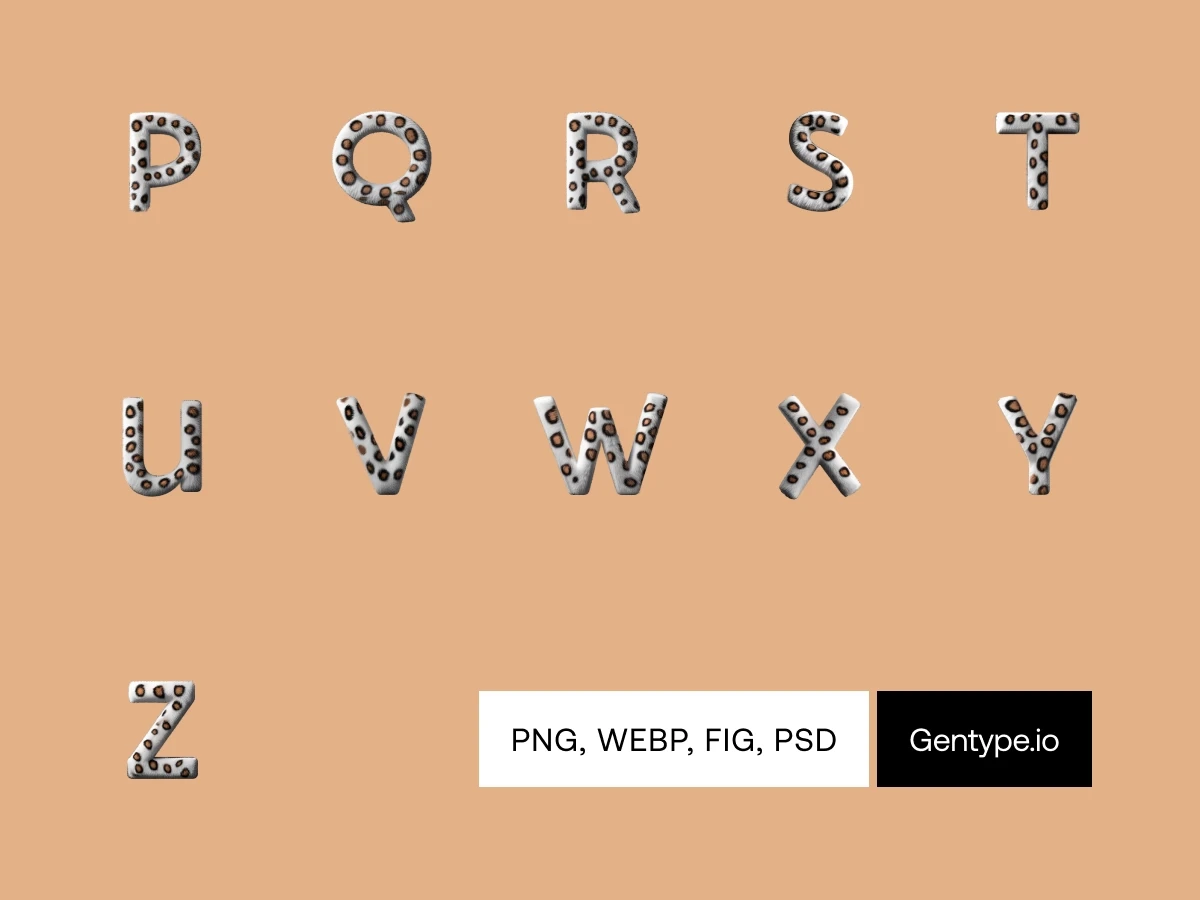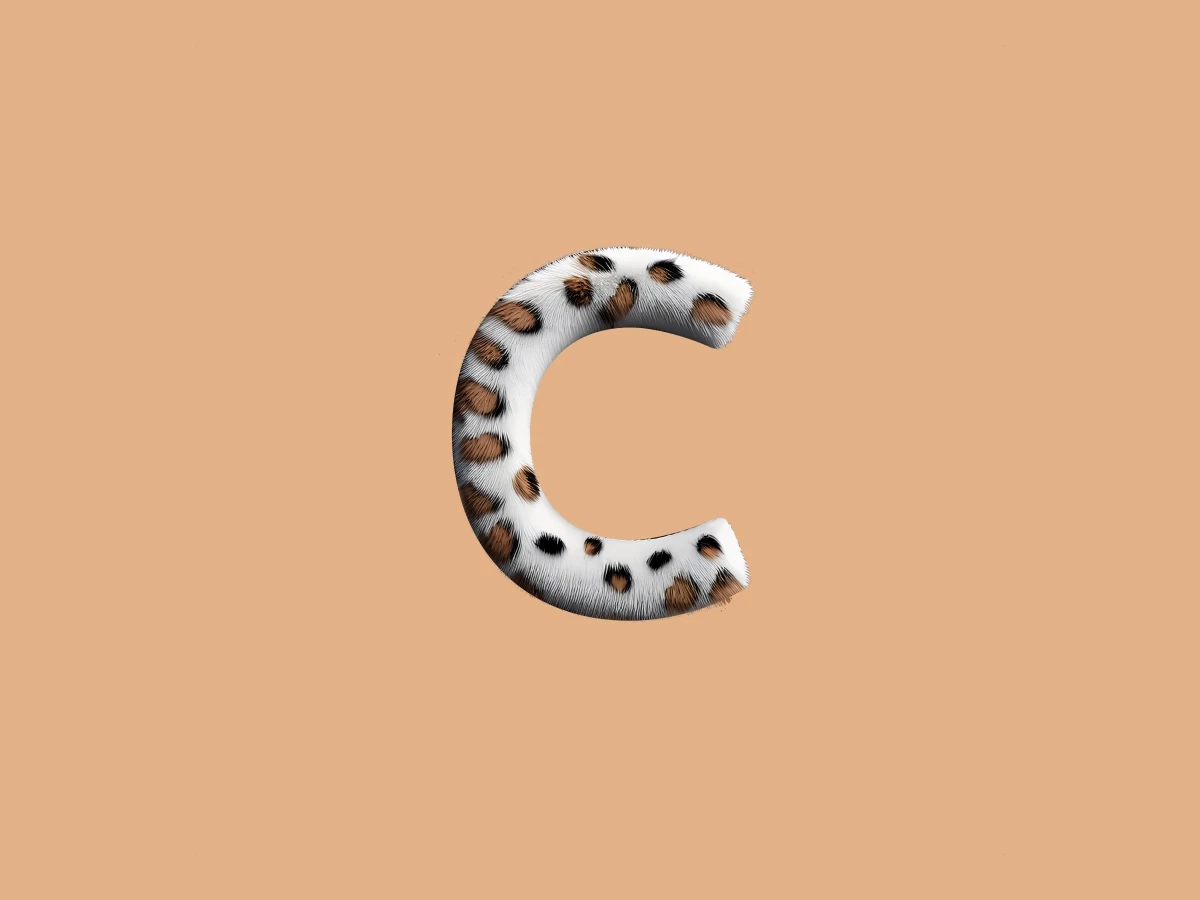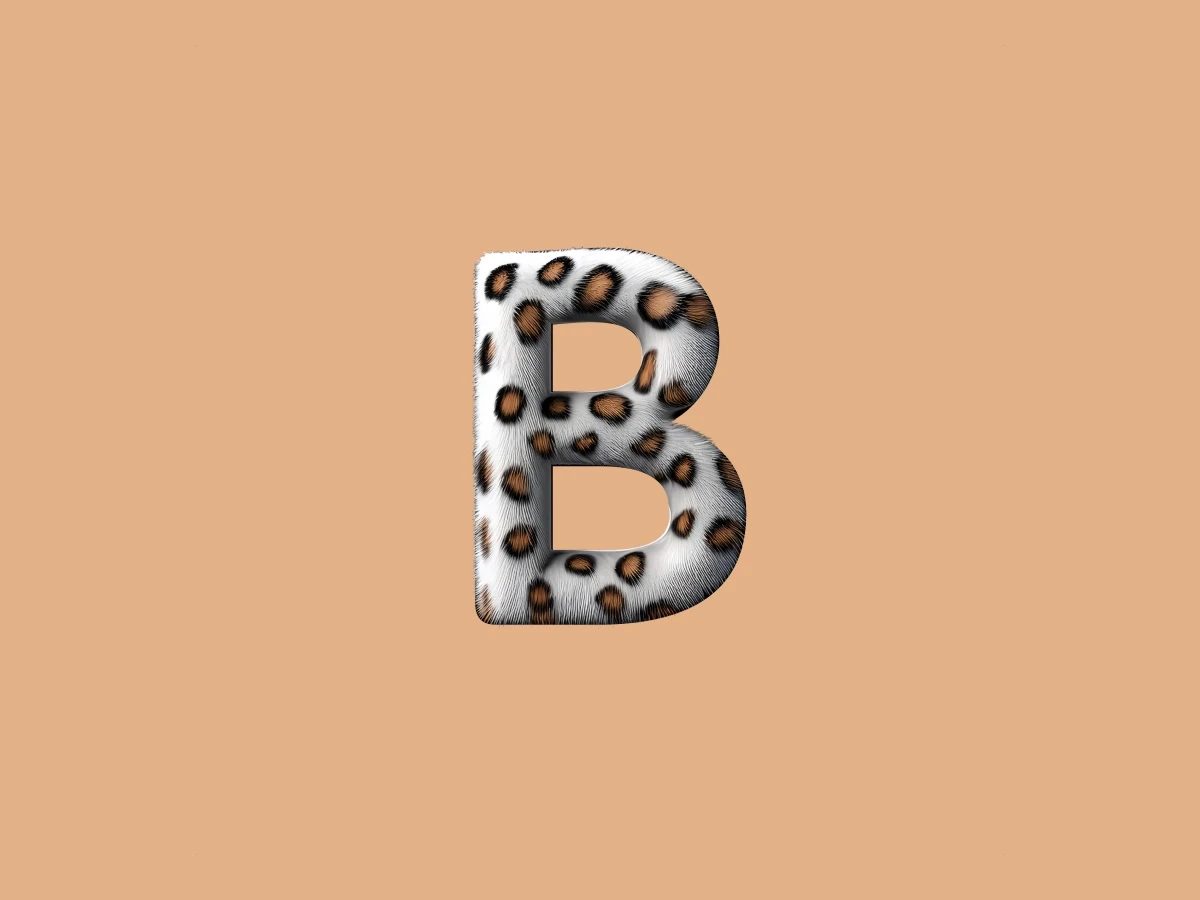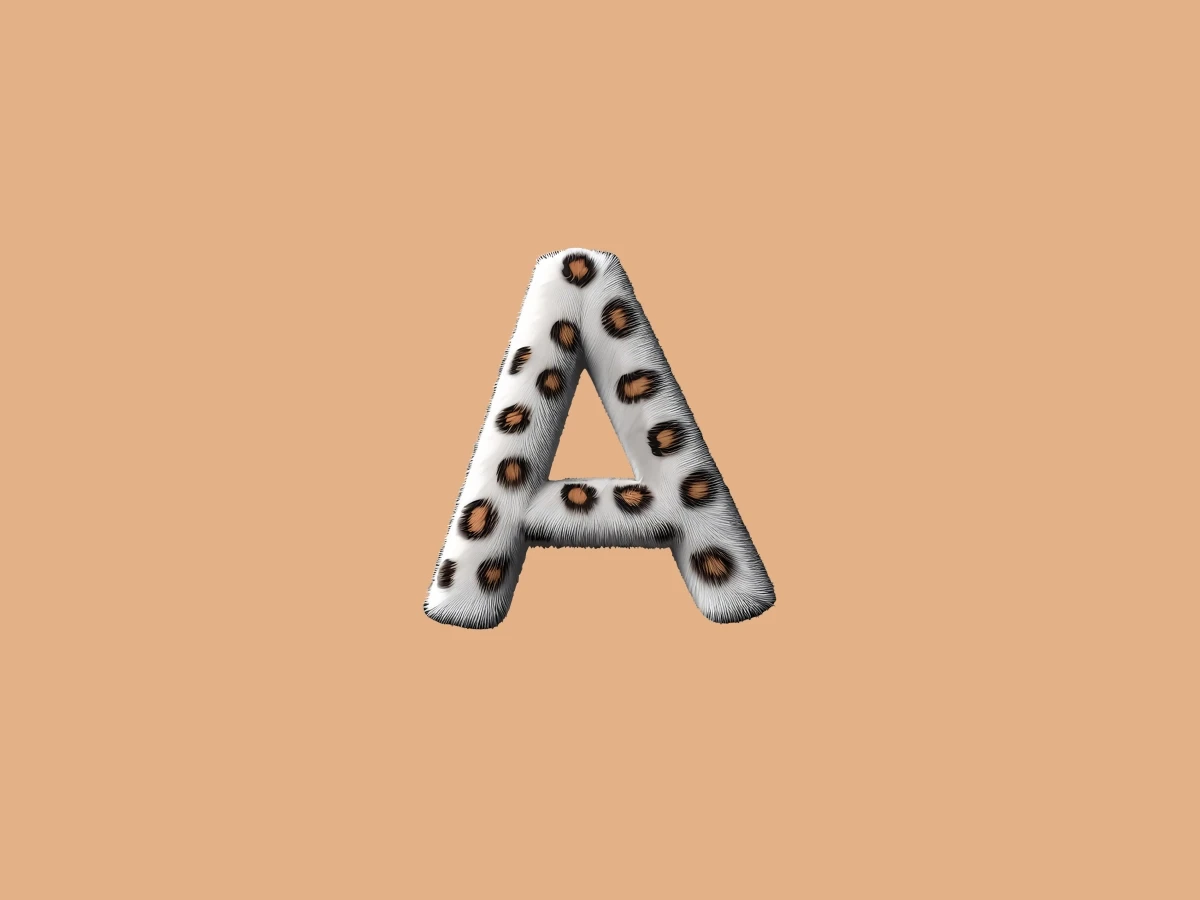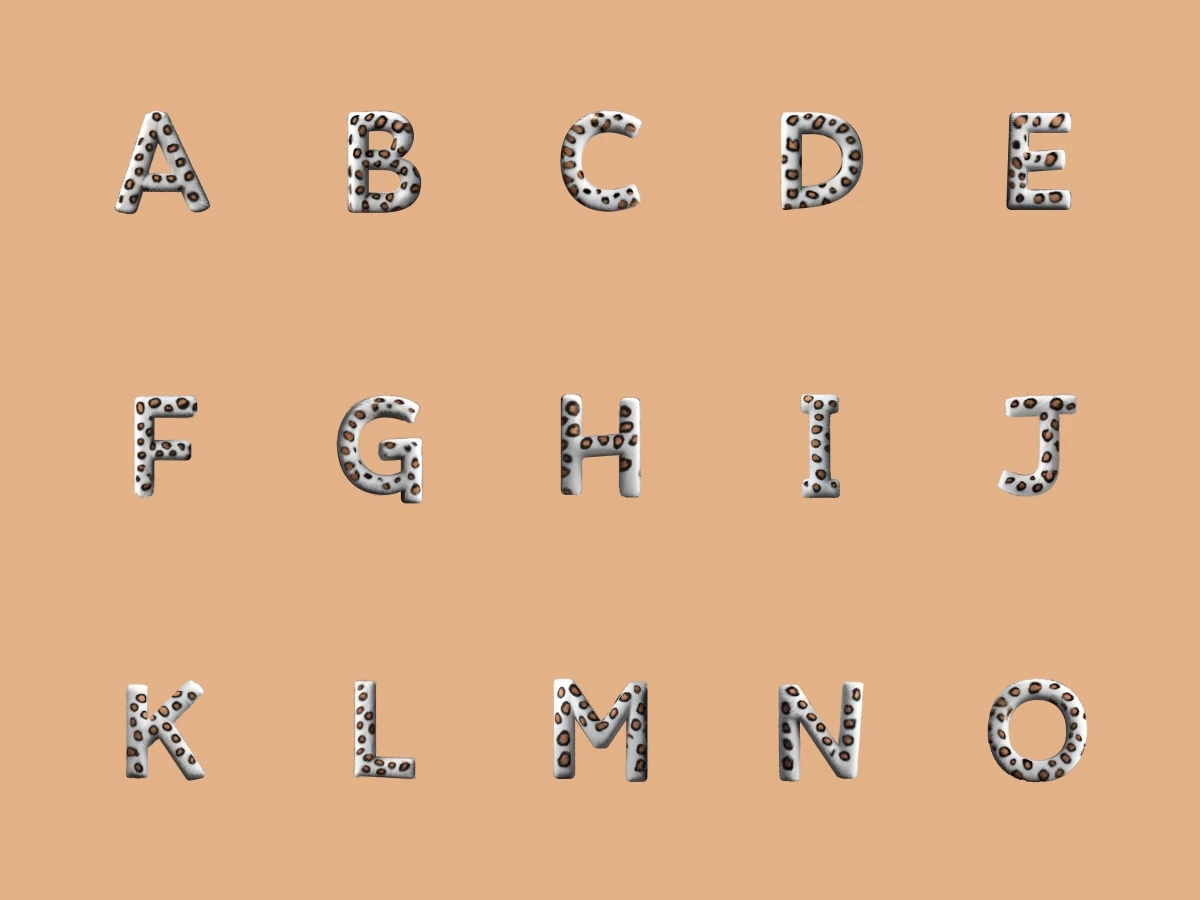
Snow Leopard
Embrace the untamed luxury of snow leopard fur in a digital form. No animals were harmed in the making of this fierce, plush design. Perfect for those who love their wild side with a touch of elegance.